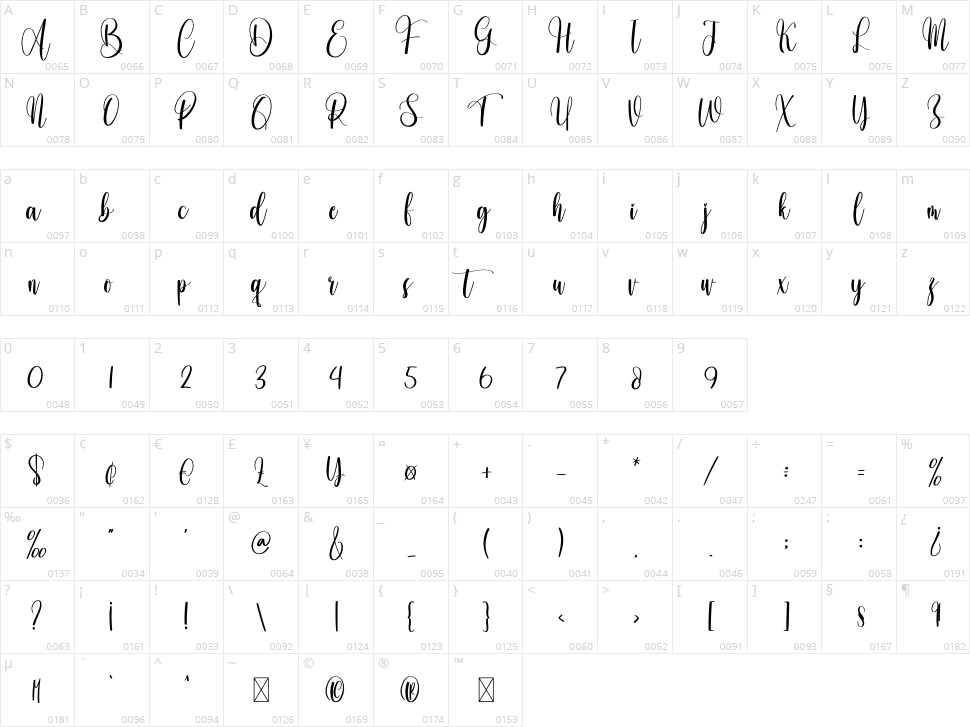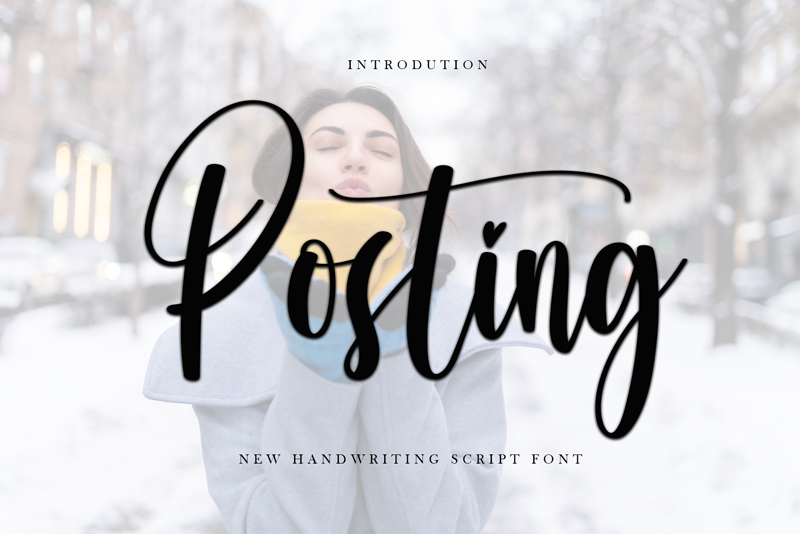
Posting
This font retains a classy calligraphic influence while feeling contemporary and fresh. This versatility will attract a wide range of creative ideas, from letterheads and titles to stationery.